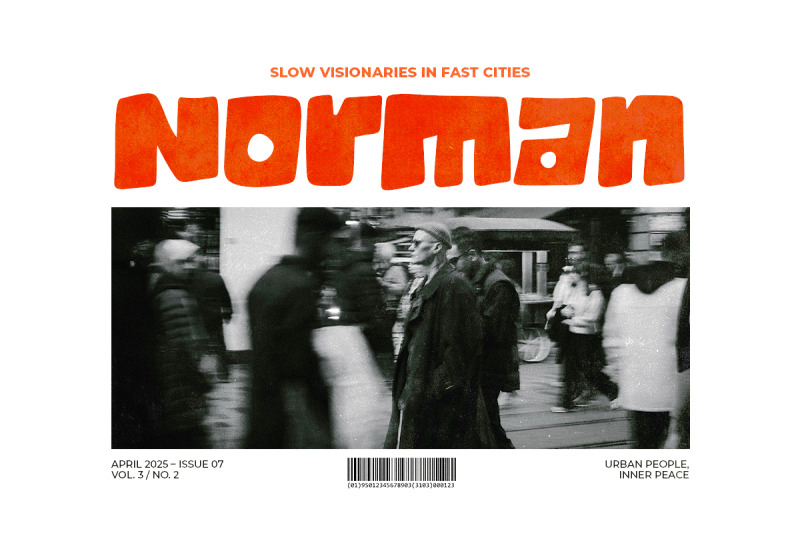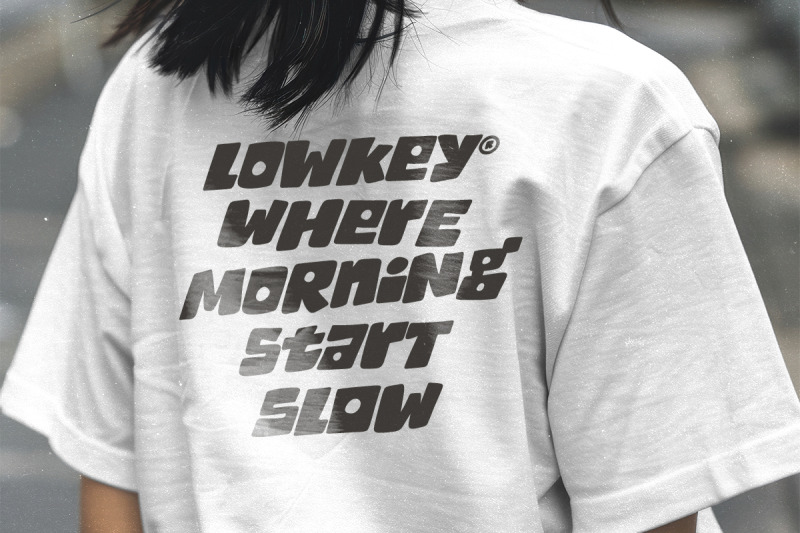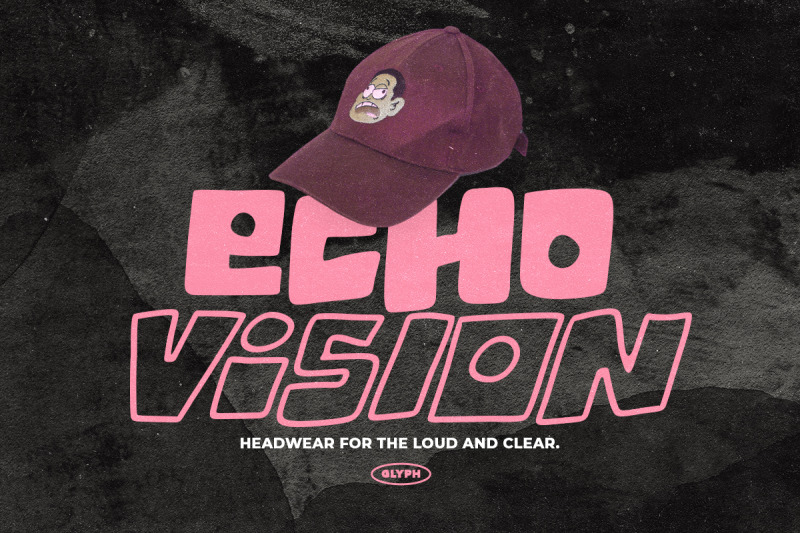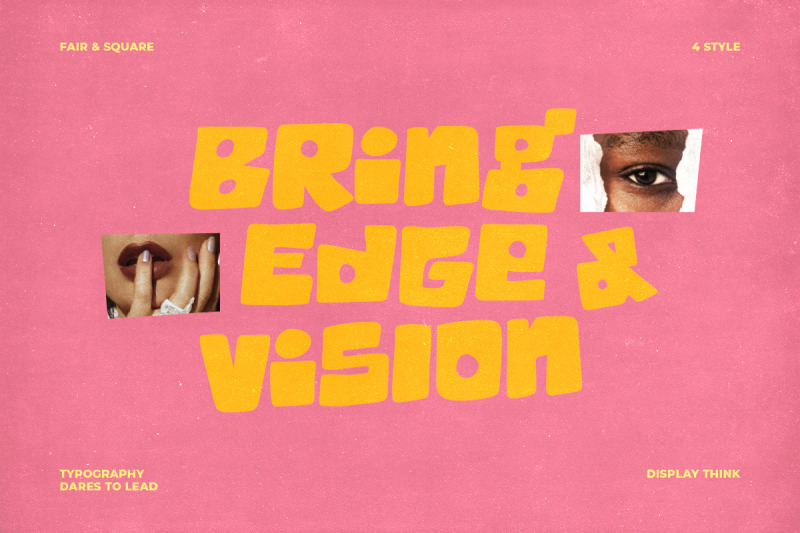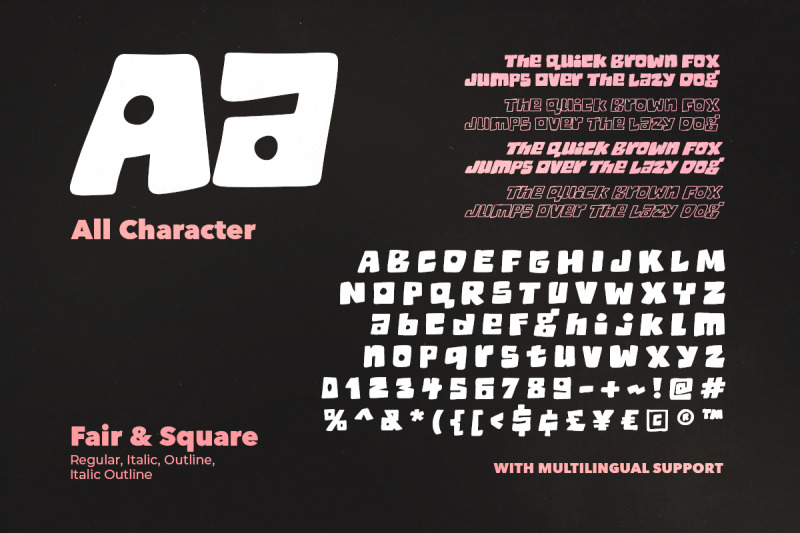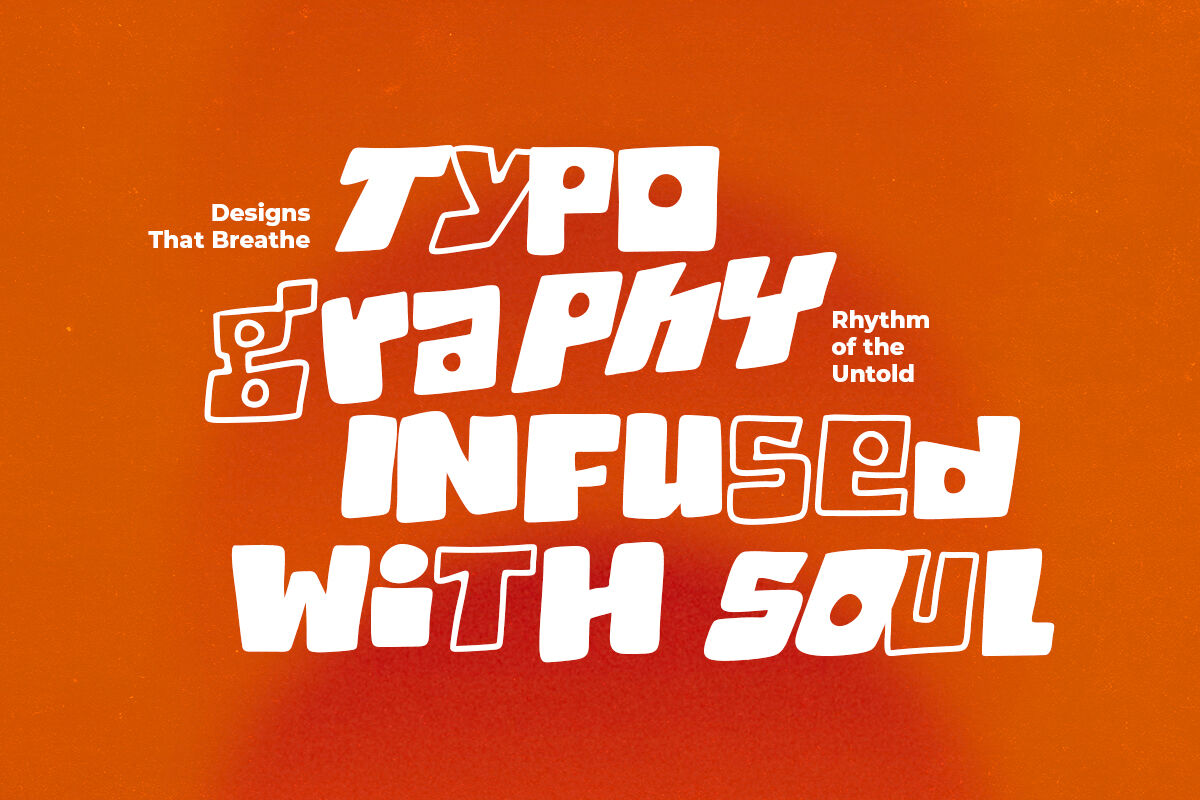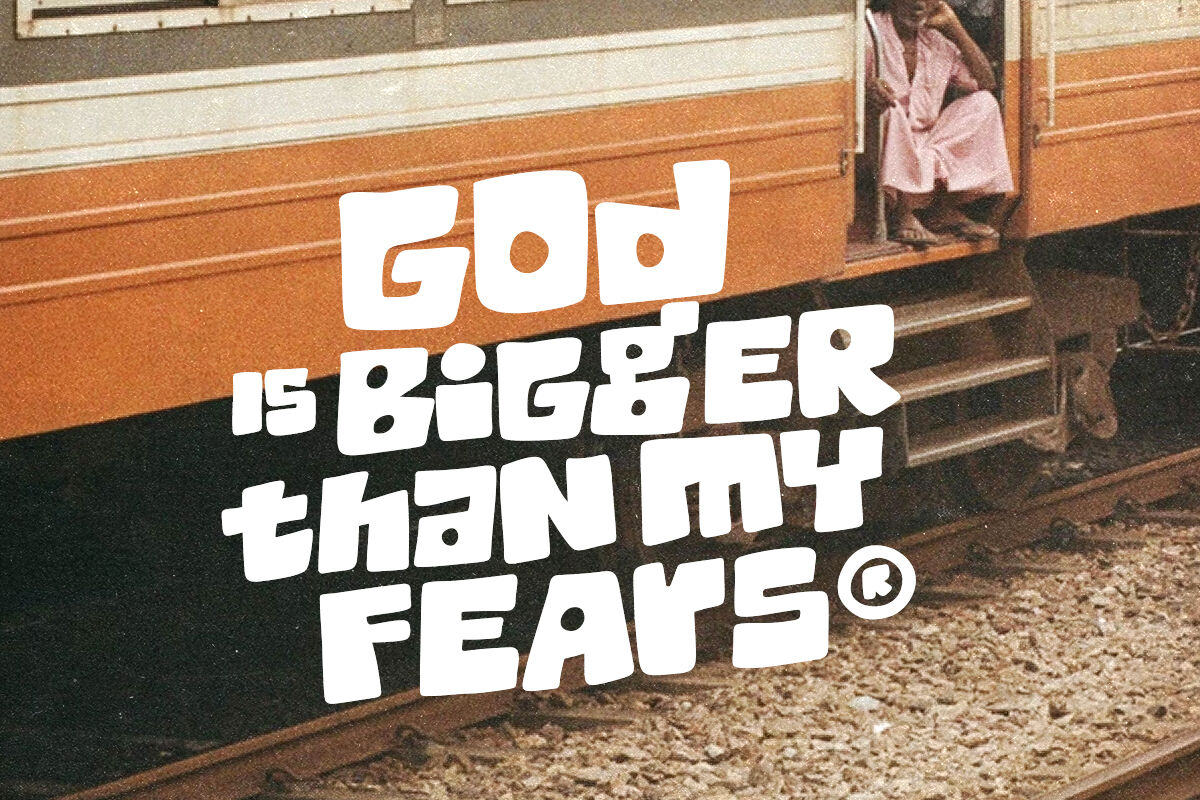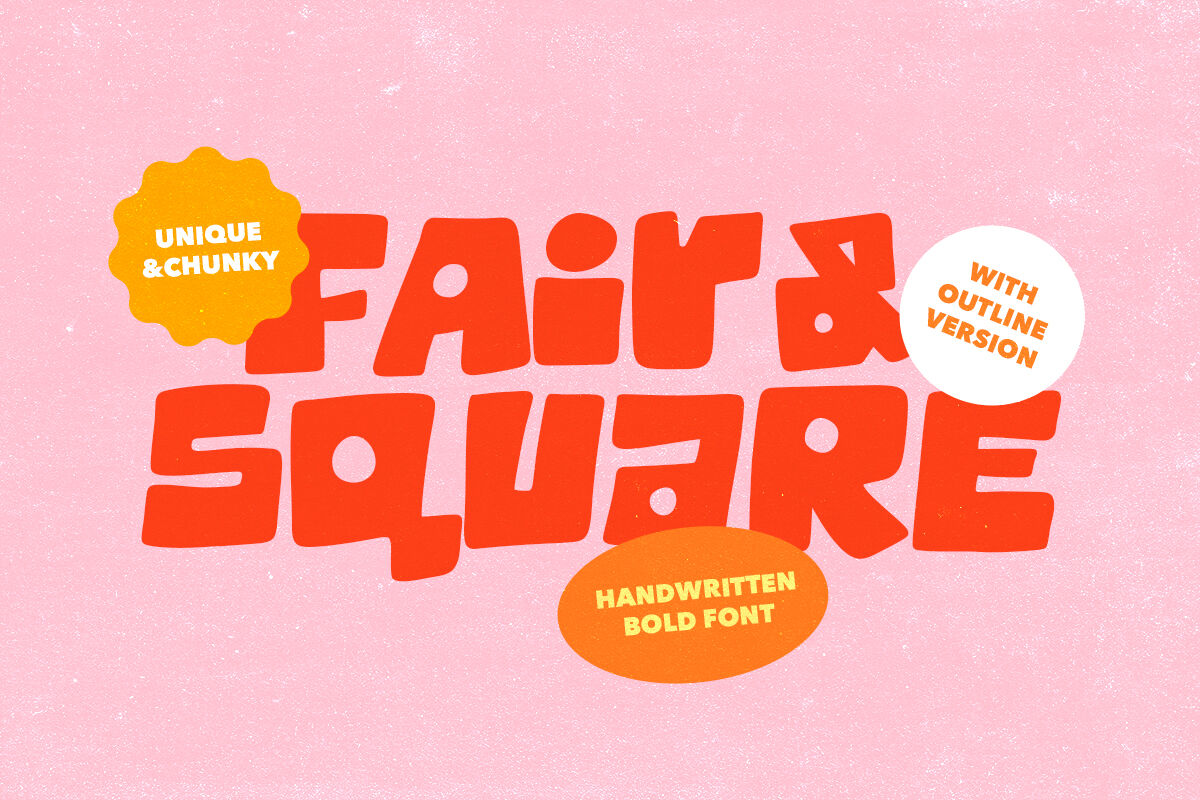
Fair Square - Chunky Bold Font
Fair Square is a chunky bold font with unique uppercase and lowercase that you can combine in a word to make your design looks stunning. Comes with Italic and outline version, you can choose or use them all that suitable for your project. You can use this font for poster, quotes, branding, or logotype. This font also support multi language.